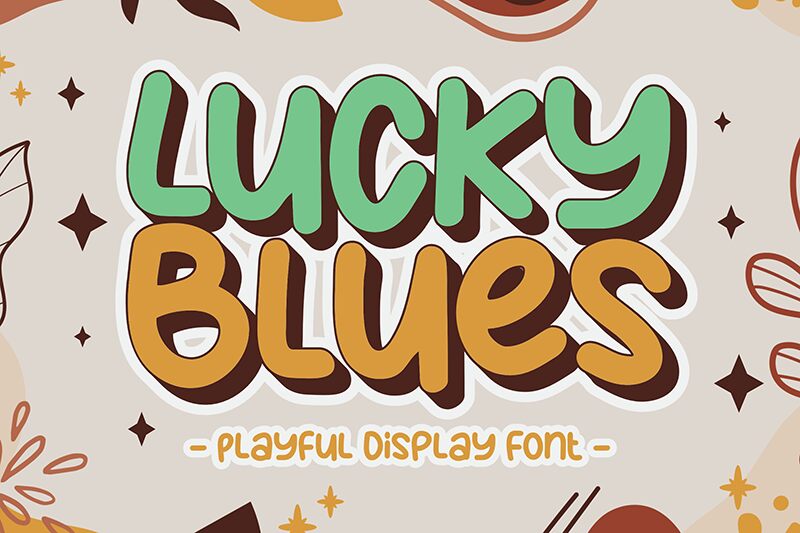
Lucky Blues Regular
Lucky Blues font by Lettersweet Studio is a cartoon display font with a retro-inspired style. It features rounded, casual, and friendly characters in line with the author’s main keywords. The overall look is approachable and inviting, making this tool an excellent choice for both personal and business projects.
Introduce Lucky Blues to posters, logos, apparel items, social media posts, and advertising graphics like banners. Get creative in branding your business through or labels for products since the font aspects seem fun to use in food-based packaging ideas! Posters work well too as well as book covers!